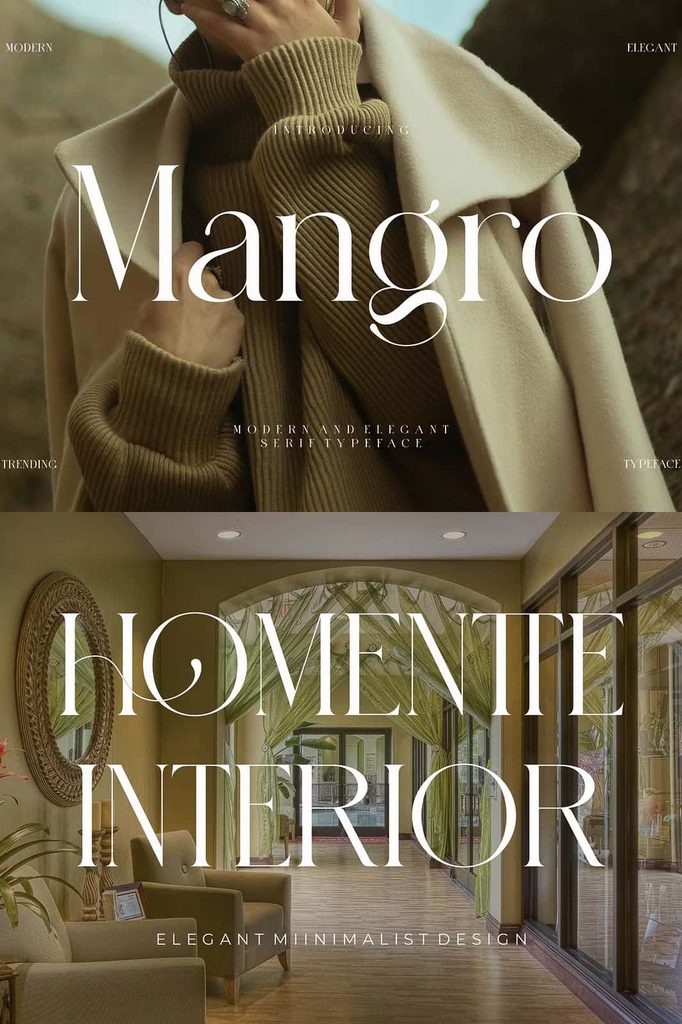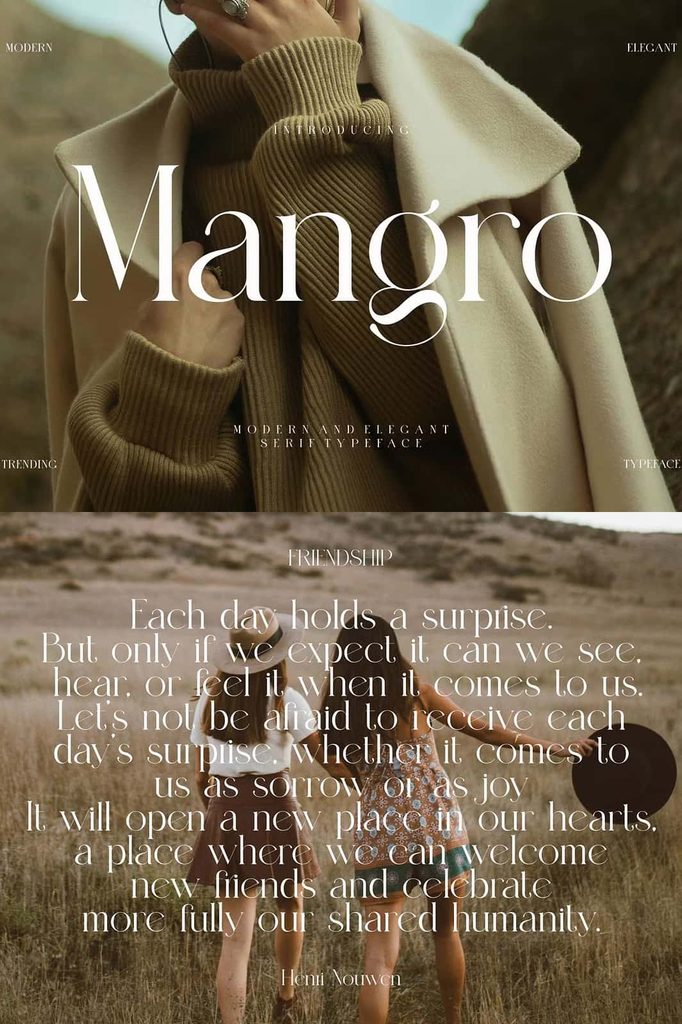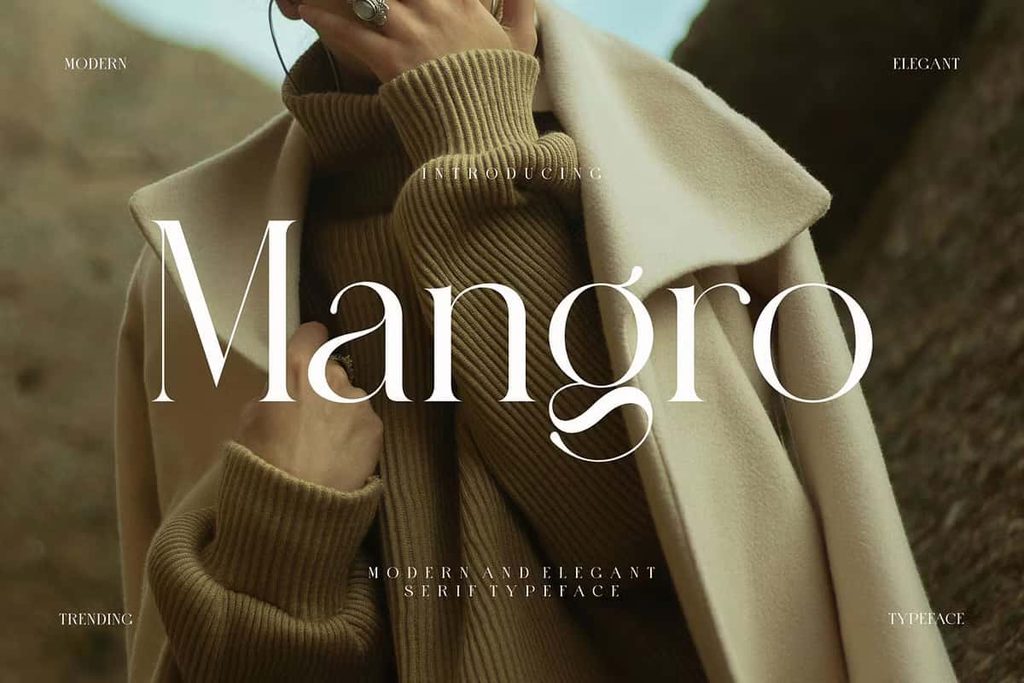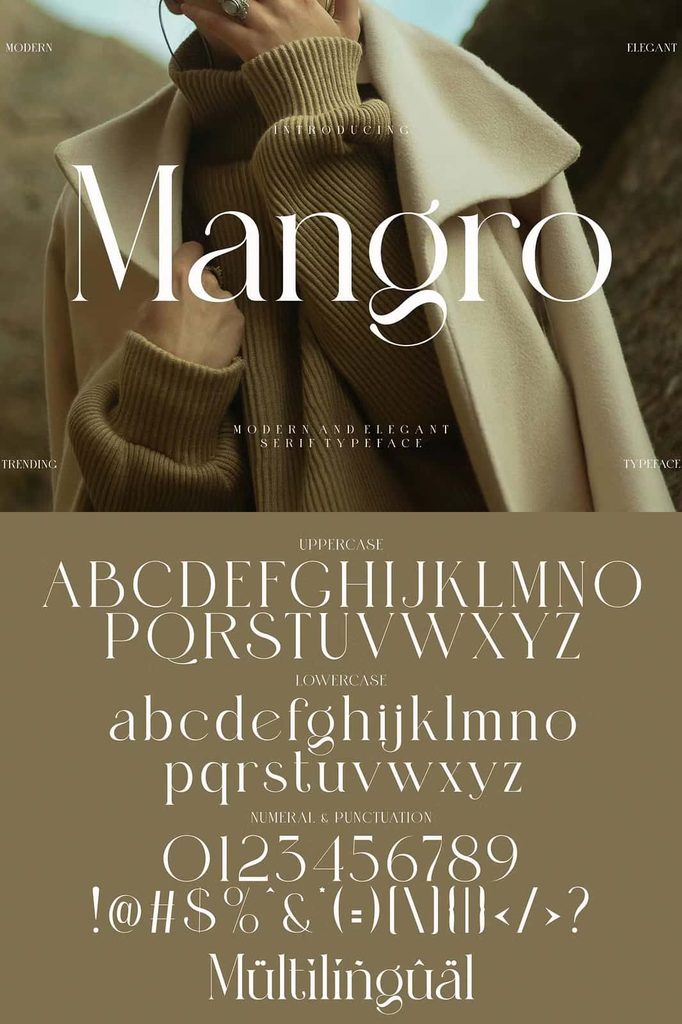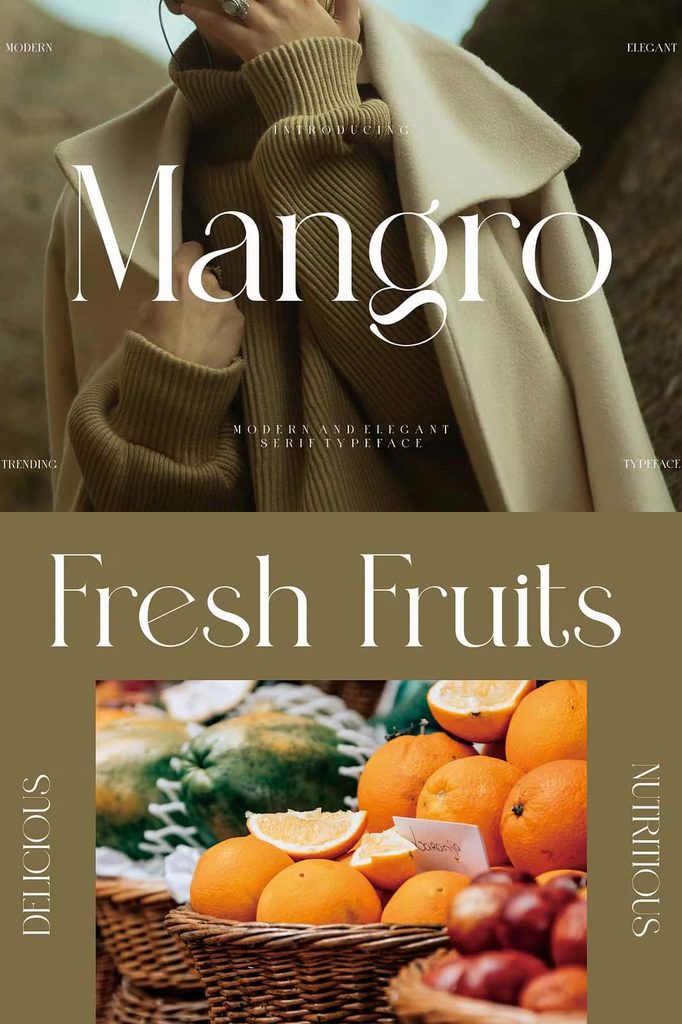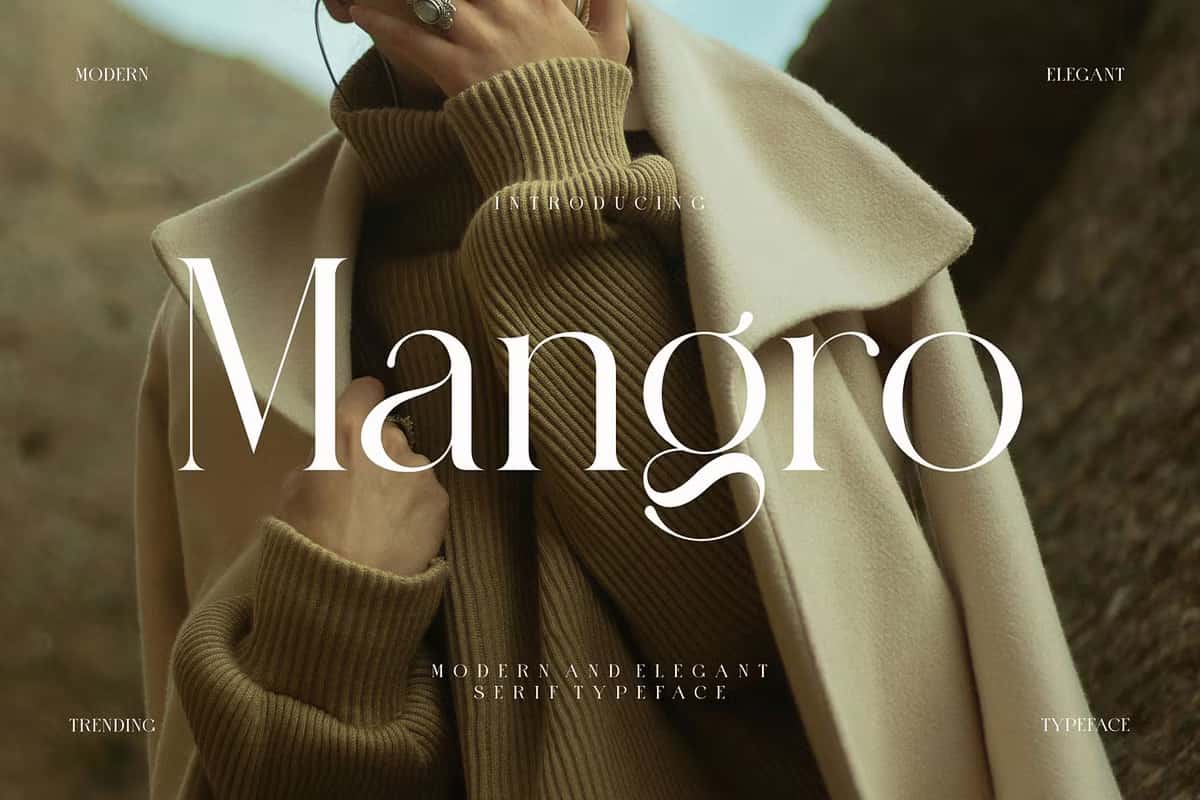
Mangro Modern and Elegant Ligature Serif Typeface
Mangro Modern and Elegant Ligature Serif Typeface offers a refined typographic style that blends modern simplicity with sophisticated serif details. Designed for creatives who value clean composition and elegant lettering, this typeface brings a polished appearance to a wide range of branding and design projects. Its graceful character makes it an excellent choice for designers who want to communicate luxury, beauty, confidence, and timeless style through typography.
Inspired by the visual language of famous minimalist logos, Mangro creates a distinctive balance between classic serif typography and contemporary design. The elegant letterforms provide a strong foundation for sophisticated layouts, while the ligature details add personality and visual interest. Use it to create memorable logos, stylish brand identities, beautiful invitations, editorial layouts, advertising materials, templates, videos, and many other creative projects.
Modern Serif Typography with an Elegant Character
Mangro combines the timeless appeal of serif typography with a clean and modern approach. The carefully shaped characters create a professional appearance while maintaining an artistic and sophisticated feel. This combination allows the typeface to work across both minimalist and luxurious design styles.
The refined letterforms can establish a strong visual hierarchy without overwhelming the surrounding elements. Designers can use Mangro for prominent headlines, brand names, titles, short statements, and other typographic elements that need to attract attention. Its elegant personality makes even simple words feel more carefully crafted and visually distinctive.
Beautiful Ligatures for a Unique Look
One of the defining characteristics of Mangro is its stylish ligature treatment. Ligatures allow selected characters to connect or interact in a more decorative way, creating a smooth and memorable typographic rhythm. These details can give logos and headlines a custom-designed appearance without requiring extensive manual lettering adjustments.
Use the ligatures to add sophistication to brand names, wedding stationery, fashion identities, beauty campaigns, packaging, and editorial designs. They can also help create a more expressive appearance when you want your typography to feel personal, elegant, and carefully considered.
Perfect for Minimalist Logo Design
Mangro works particularly well for minimalist logo concepts. Its sophisticated serif structure allows designers to create wordmarks that look clean while still maintaining a distinctive personality. The combination of elegant proportions and ligature details can help businesses establish a memorable visual identity.
Use the typeface for fashion brands, beauty studios, boutique businesses, lifestyle companies, creative agencies, photographers, wedding professionals, interior designers, and other brands that require a sophisticated visual presence. Pair the lettering with simple shapes, subtle lines, or minimal symbols to create a balanced logo system.
Ideal for Branding and Advertising
A strong typeface can help a brand communicate its personality consistently across different materials. Mangro gives branding projects a polished typographic foundation that can adapt to both print and digital applications. Use it for business names, taglines, promotional headlines, social media graphics, advertisements, packaging, and marketing materials.
Its elegant appearance also works well when paired with clean layouts and generous spacing. Designers can create sophisticated compositions by allowing the typography to remain the primary visual focus. This approach works especially well for premium brands that want to communicate quality and attention to detail.
Great for Invitations and Stationery
Mangro brings a graceful and romantic quality to invitation designs. Use it for wedding invitations, engagement announcements, save-the-date cards, birthday invitations, dinner invitations, event stationery, and personalized greeting cards. The refined serif shapes and decorative ligatures can add an upscale appearance without making the layout feel overly complicated.
Combine the typeface with delicate ornaments, botanical illustrations, minimalist frames, or elegant borders to build a cohesive stationery collection. It can also work beautifully for names, headings, dates, and short phrases that need a sophisticated typographic treatment.
Enhance Beauty and Fashion Designs
The elegant character of Mangro makes it a natural choice for beauty and fashion-related projects. Create logos for skincare brands, cosmetics companies, salons, spas, boutiques, jewelry businesses, and personal-care products. Its sophisticated appearance can support premium visual identities and help brands present their products with confidence.
Use the font across product labels, packaging, promotional banners, magazine-style layouts, social media campaigns, and advertising materials. The clean serif structure allows you to create luxurious designs while maintaining a modern visual direction.
Choose Mangro when you need typography that feels elegant without becoming overly complicated. Its balanced character allows you to create clean compositions while still adding enough personality to make your designs memorable. With the right layout, spacing, imagery, and supporting elements, this typeface can help you produce professional visual identities that communicate modern elegance across a wide range of creative applications.